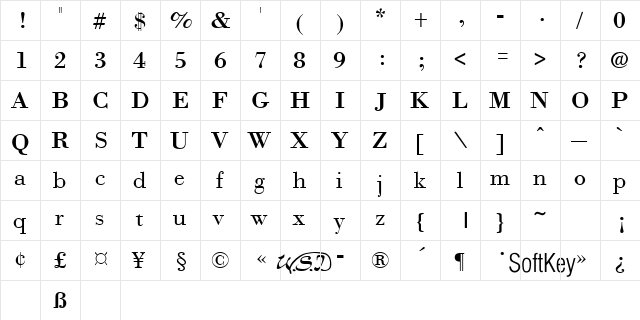
Nec Regular Regular
Design Context for Nec Regular Typeface
Nec Regular is a composed and adaptable typeface that performs quietly and consistently across a wide range of design contexts.